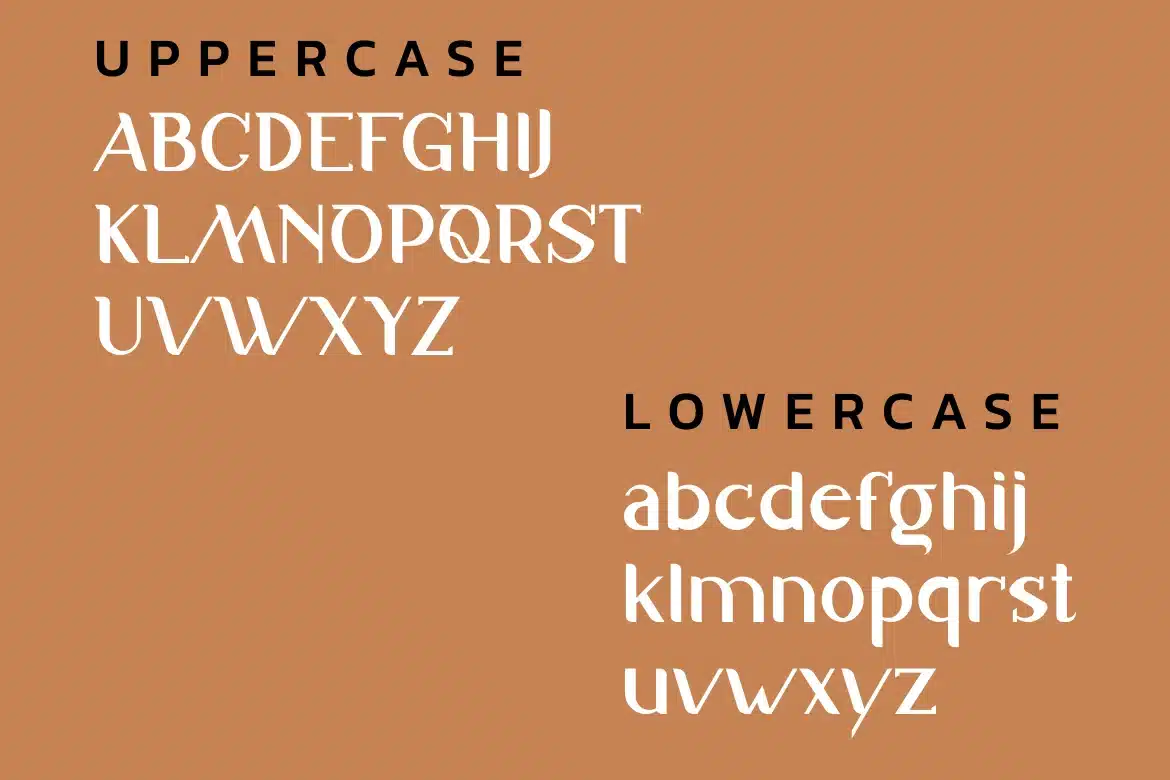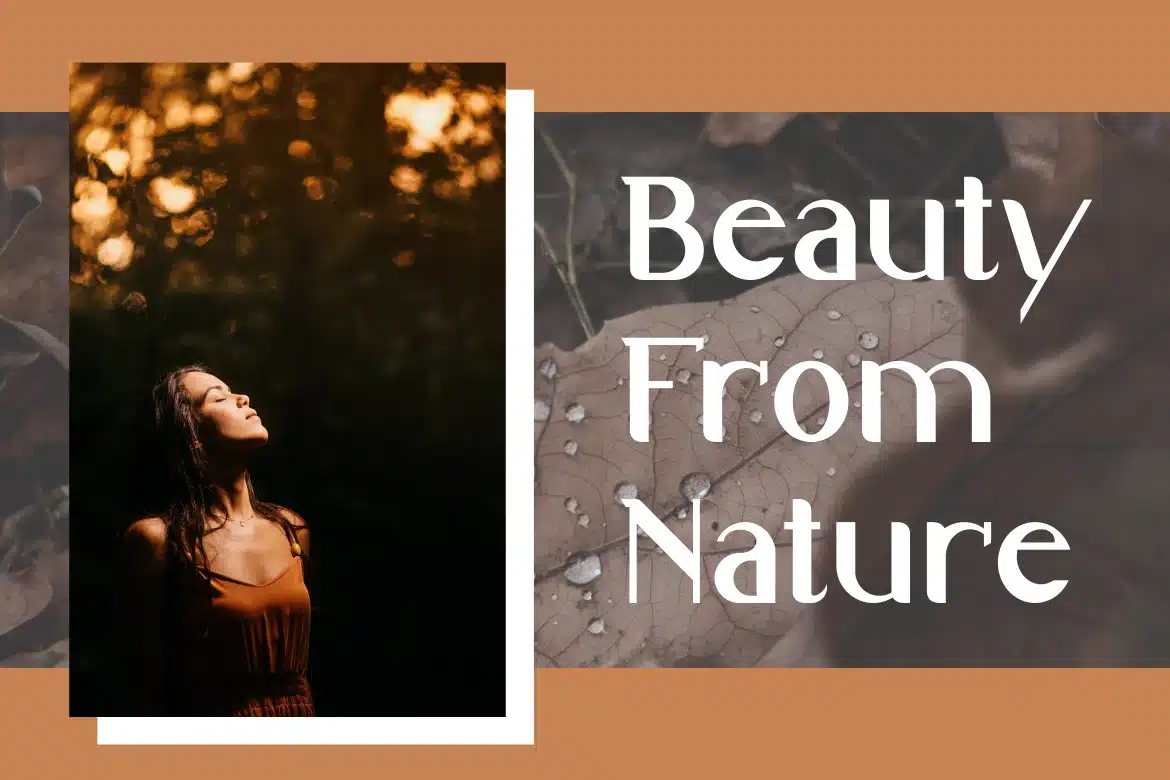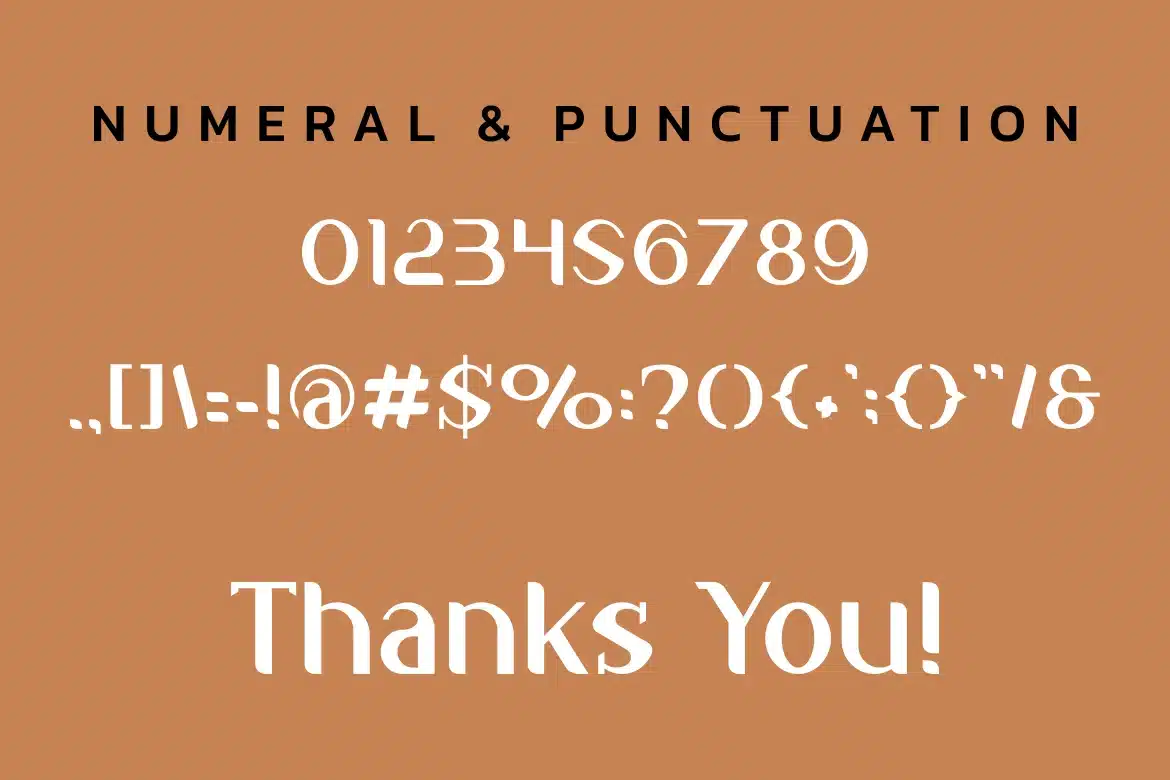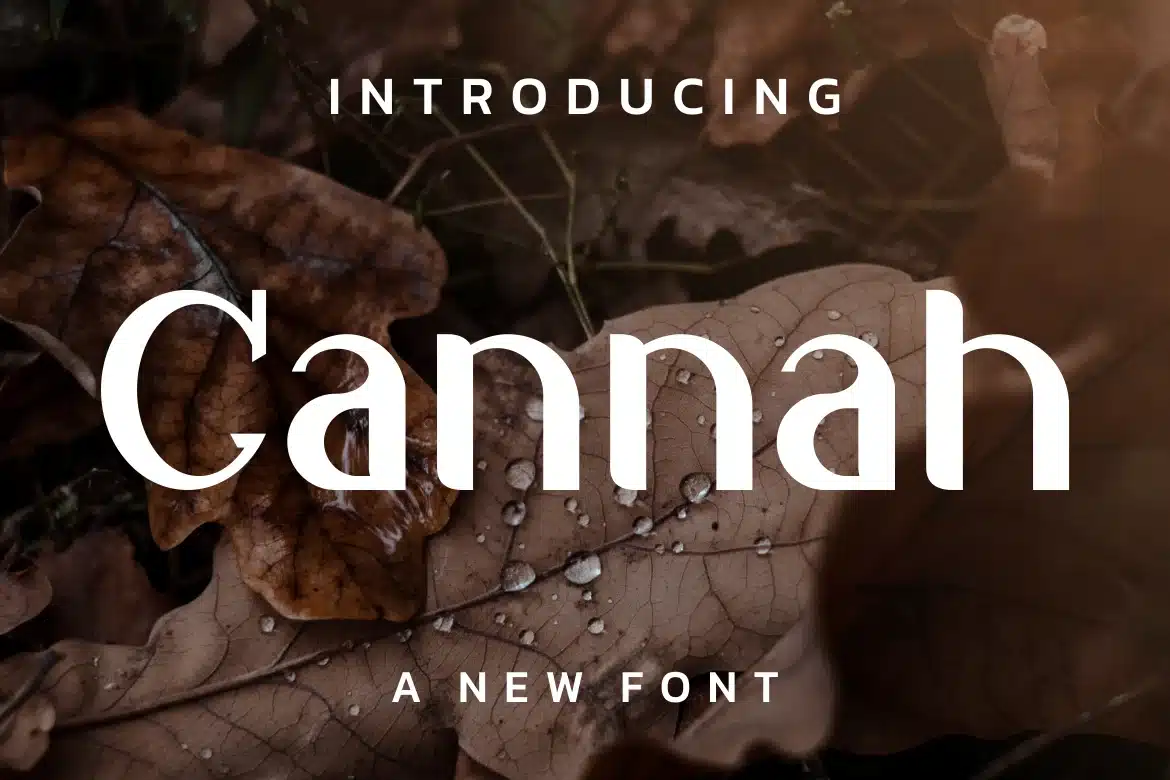
Cannah Font
Introducing our new product Cannah Font - Modern Font
Cannah Font - Modern Font is a bold and authentic display font. The font is suitable for any branding project like logo, t-shirt printing, and many more. outstanding in a wide range of contexts.